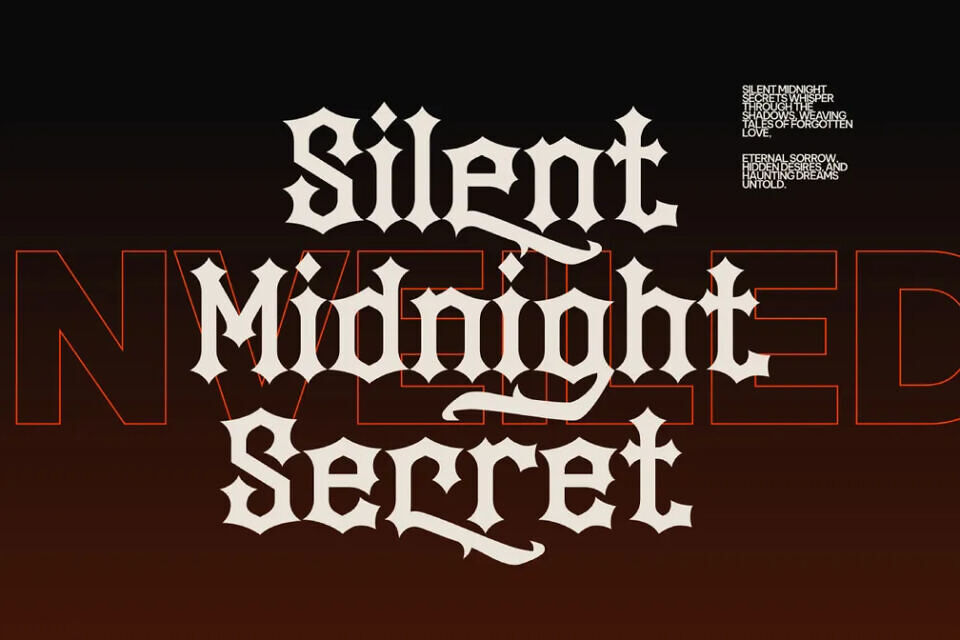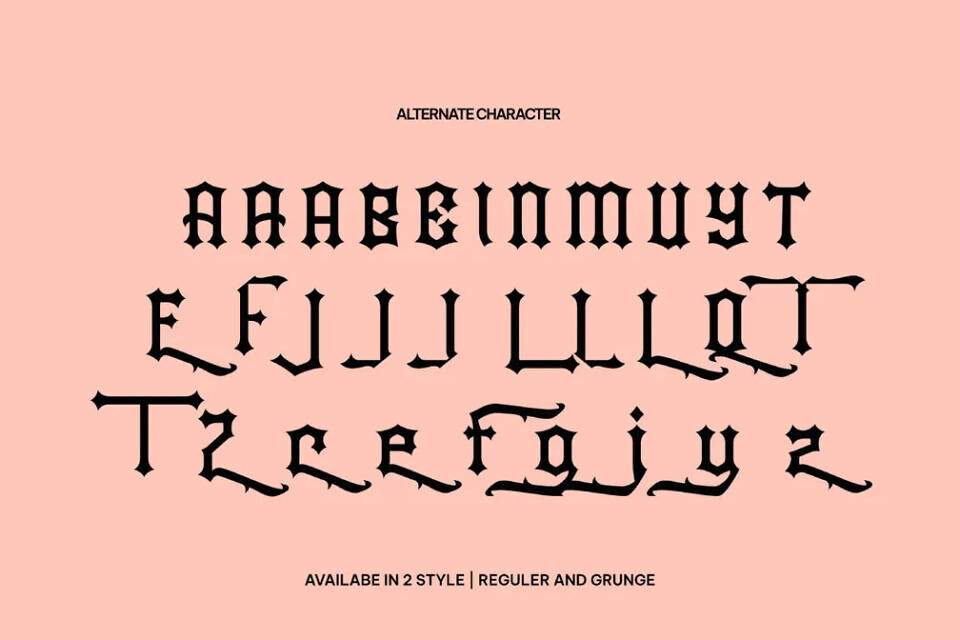
Black Goth Font
Blackgoth Font is a stylish, strong blackletter typeface perfect for gothic, vintage, and dark-themed designs. This versatile display font, reminiscent of a medieval or old English style, includes both uppercase and lowercase letters, as well as alternate characters for creative flexibility. It is available in two styles: Regular and Grunge, making it ideal for impactful headlines, logos, tattoos, apparel, and branding projects.